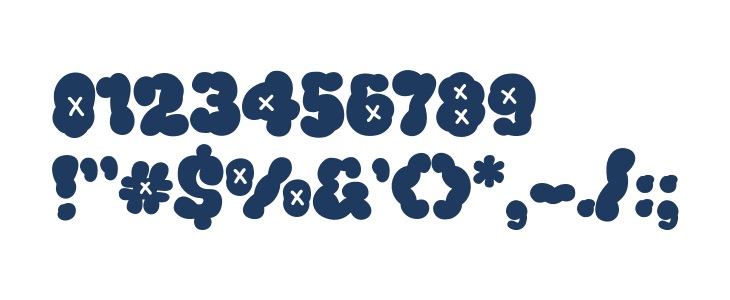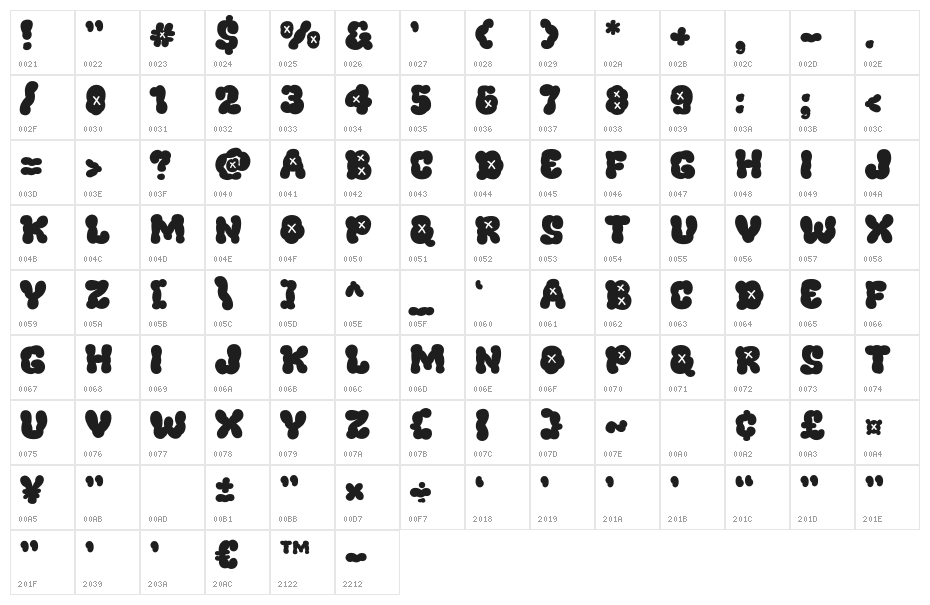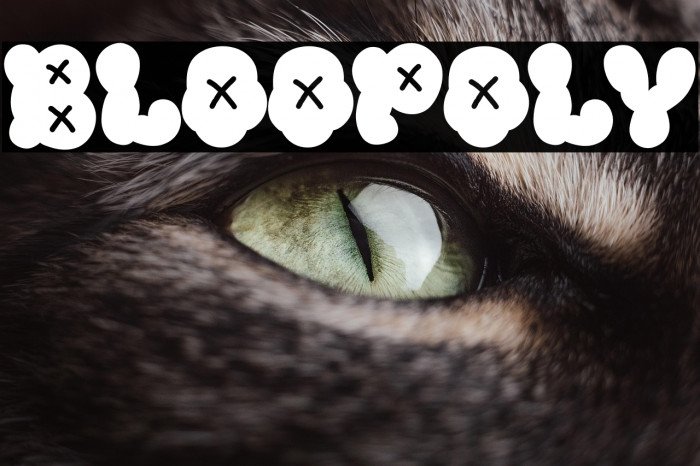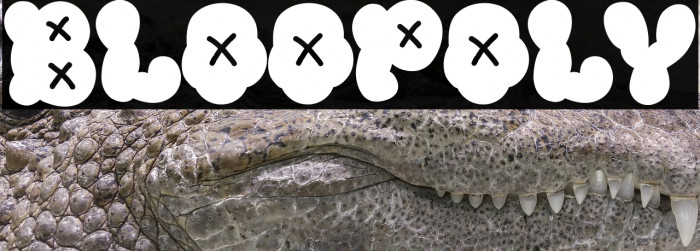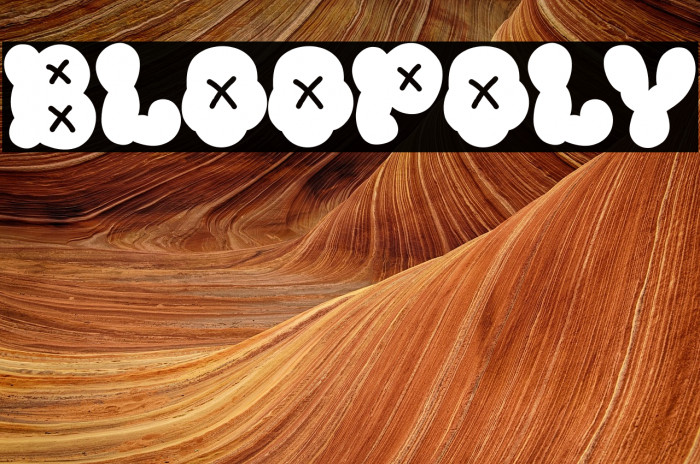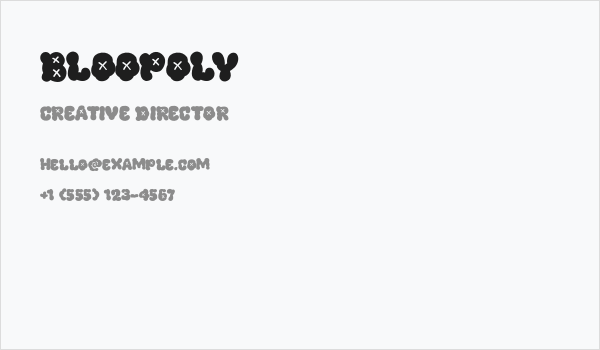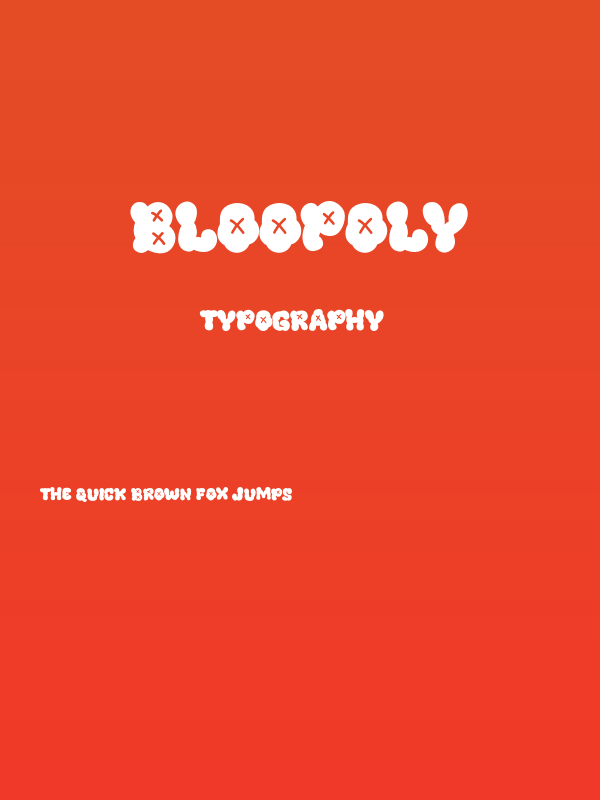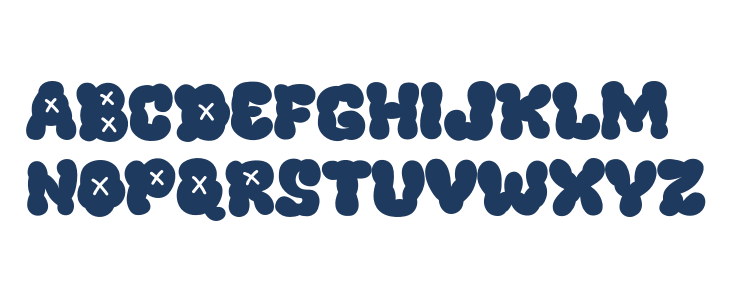
Bloopoly Font
Bloopoly Description
This playful and bold font features rounded, bubble-like characters with a unique cross pattern inside each letter. The design is highly decorative, with thick strokes and a whimsical style that captures attention. The characters are evenly spaced, maintaining a consistent and cohesive look across both uppercase and lowercase letters. Numbers and special characters follow the same playful aesthetic, making this font versatile for creative projects. Its boldness and distinct style make it ideal for designs that require a fun and engaging visual impact.
| Proposed Projects | Ideal for children's books, playful branding, party invitations, and creative posters. |